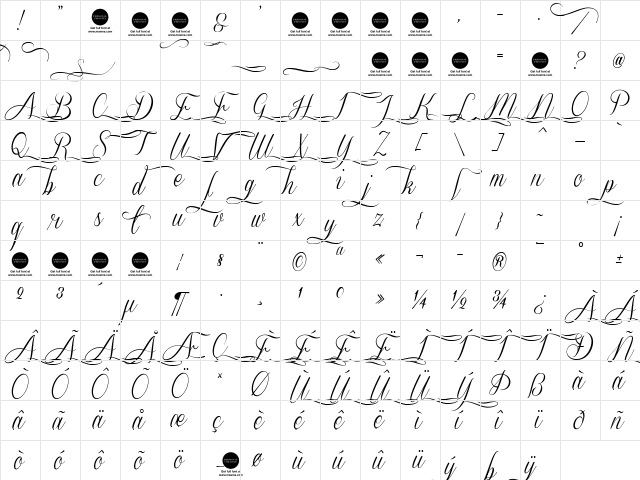
Sverige Script Decorated Demo flows with the natural rhythm of handwritten lettering, making it ideal for designs that call for warmth and personal expression.
Font Pairing: Combine Sverige Script Decorated Demo with a simple geometric sans for maximum contrast - the tension between flowing curves and clean structure is a classic typographic pairing.
Pro Tip: Use Sverige Script Decorated Demo for short runs of text - names, titles, or taglines. Extended body copy in script faces tires the eye quickly.